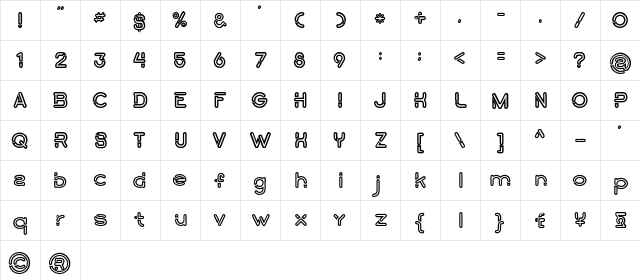
montana bold line Regular Font Preview
montana bold line Regular
montana bold line Regular Font Details
| Foundry | cruzine |
| Designer | cruzine |
Design Context for montana bold line Typeface
montana bold line is a composed and adaptable typeface that performs quietly and consistently across a wide range of design contexts. The heavy weight commands attention and anchors typographic hierarchies.